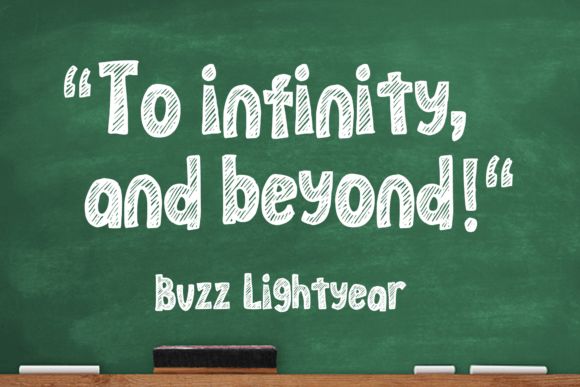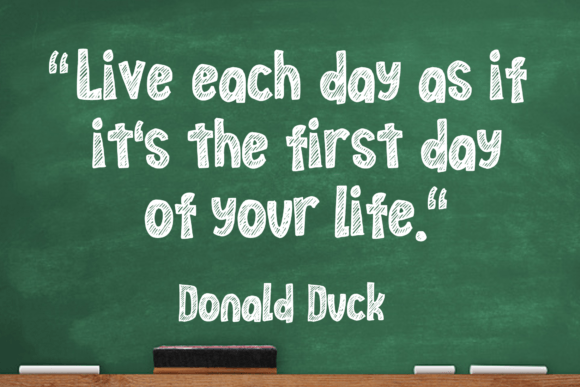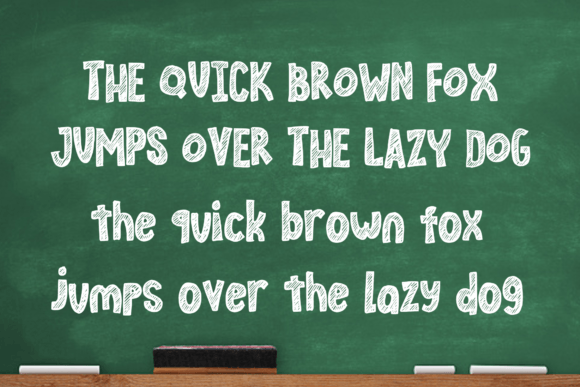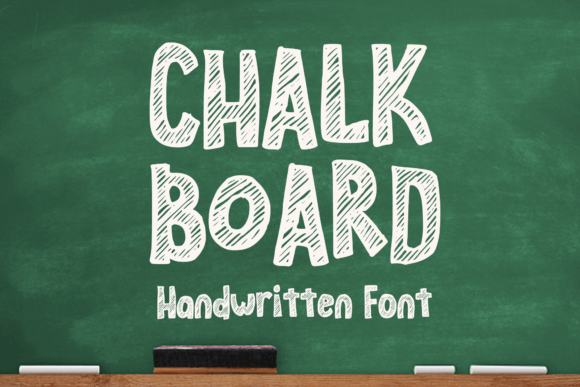
Introduction to Chalkboard Font
Chalkboard is a fun and useful chalk display font.
You can use it for anything ranging from t-shirts, kids’ book designs, and greeting cards to stickers and posters, or anything that needs a casual touch Fall in love with its incredibly versatile style, and use it to create lovely designs.